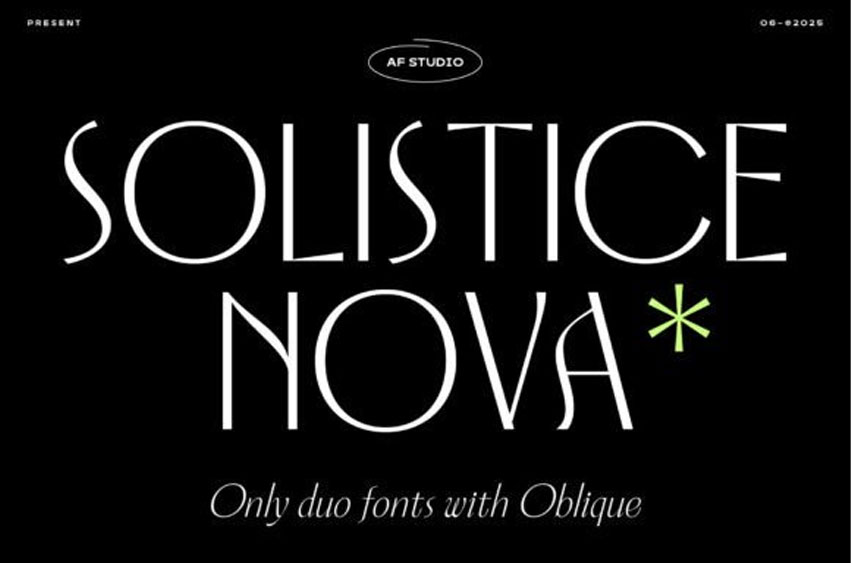
Solistice Nova Font
Solistice Nova Font is a mesmerizing dual-style font boasting both Regular and Oblique forms. Conceptualized to spark creativity, Solstice Nova melds understated sophistication with a spirited twist, serving as an ideal selection for branding initiatives, inventive projects, poster designs, and beyond.
Thanks to its multilingual capability, Solstice Nova offers boundless adaptability for designers across the globe. Balancing geometric precision and a distinct character, Solstice Nova infuses your designs with a contemporary yet playful vibe.